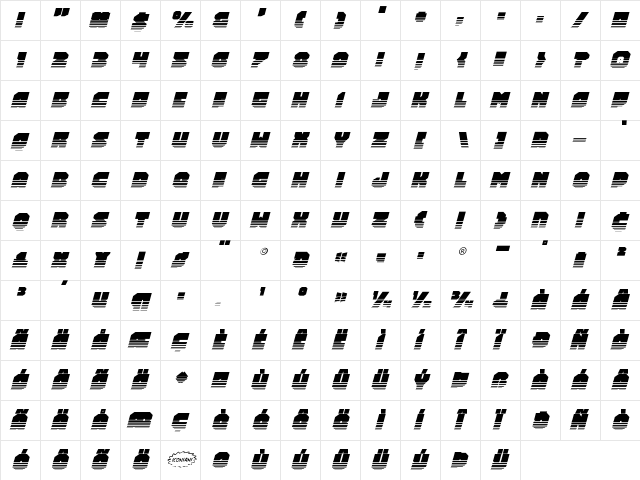
Turtle Mode Halftone Italic Italic
Design Context for Turtle Mode Halftone Italic Typeface
Turtle Mode Halftone Italic is a composed and adaptable typeface that performs quietly and consistently across a wide range of design contexts. Its italic angle brings a sense of urgency and motion to the letterforms.